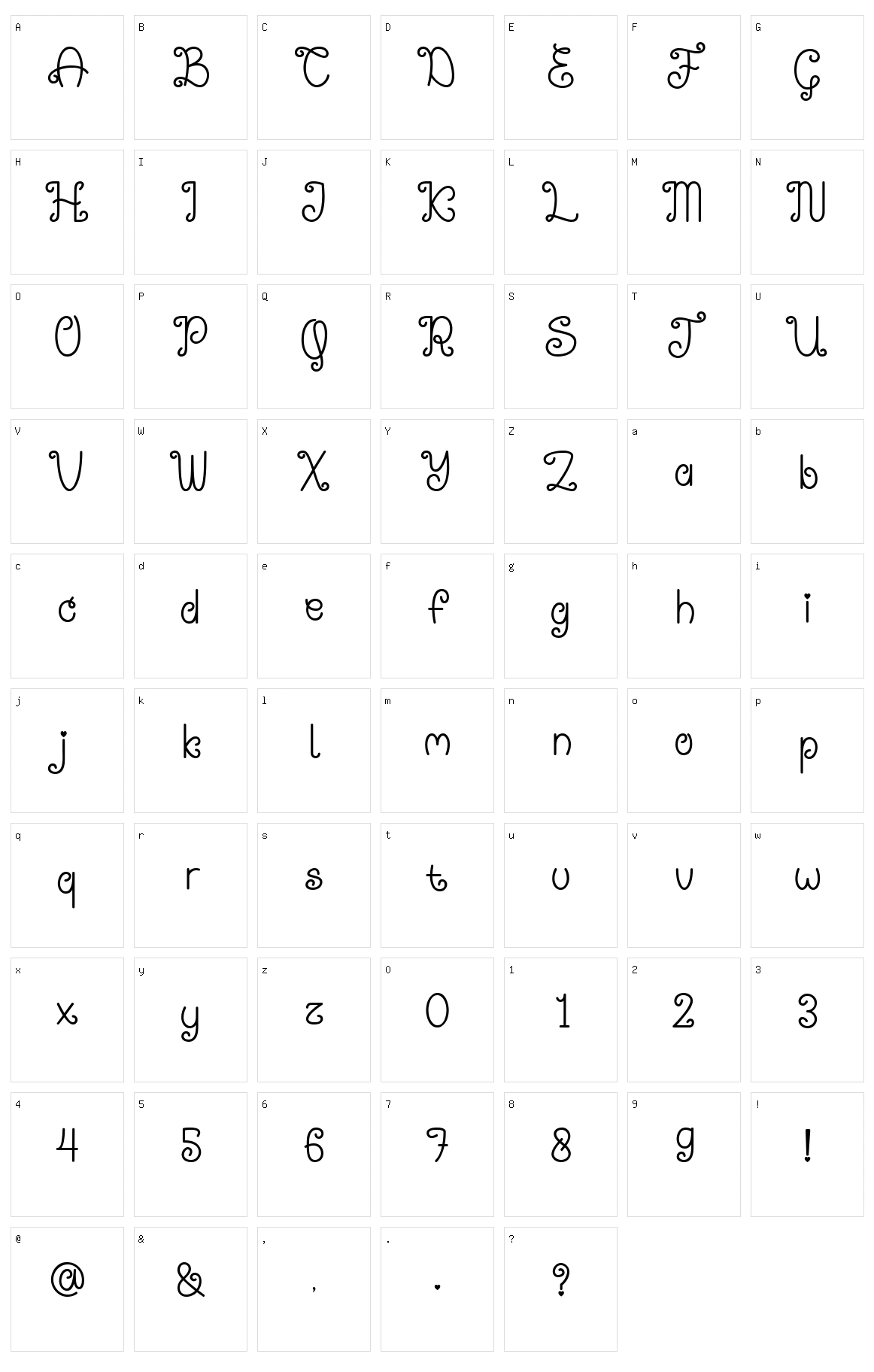
The free font Sweet Gracia is carefully designed by Jprint Studio, showcasing a thoughtful balance of creativity and usability and falls under the Cartoon font style. When you download the ZIP file, it contains only 43.34 KB of font files, making it lightweight and quick to download. Please review the license details below to understand permitted usage and distribution rights. If license information is not available, we recommend using this font for personal projects only or contacting the author directly for commercial usage permissions.